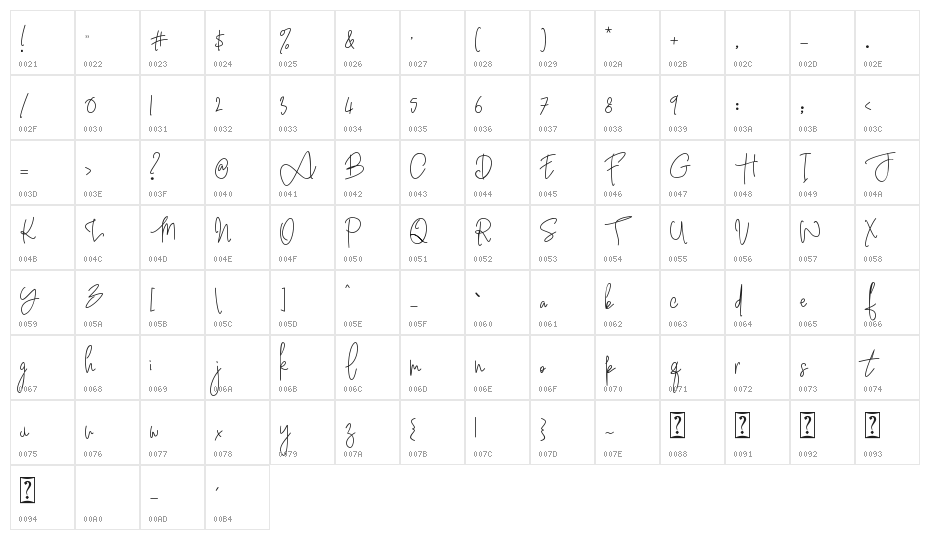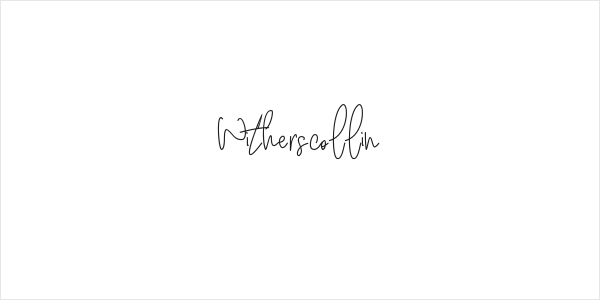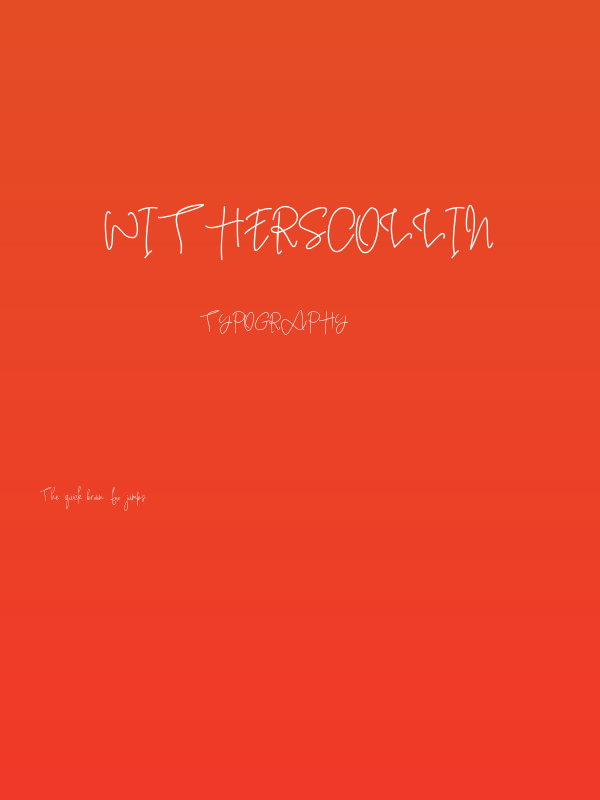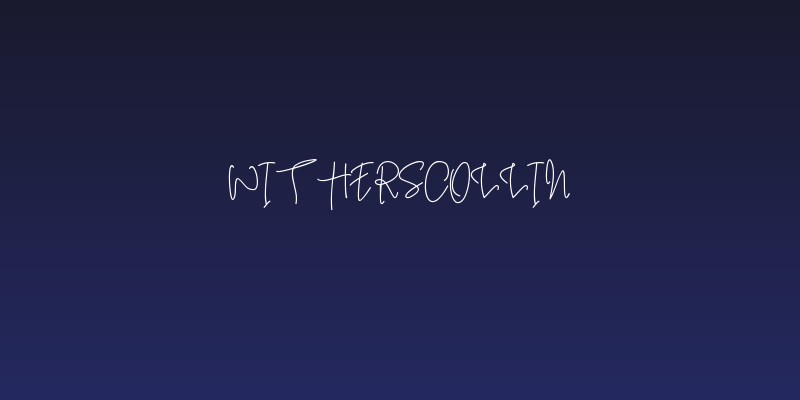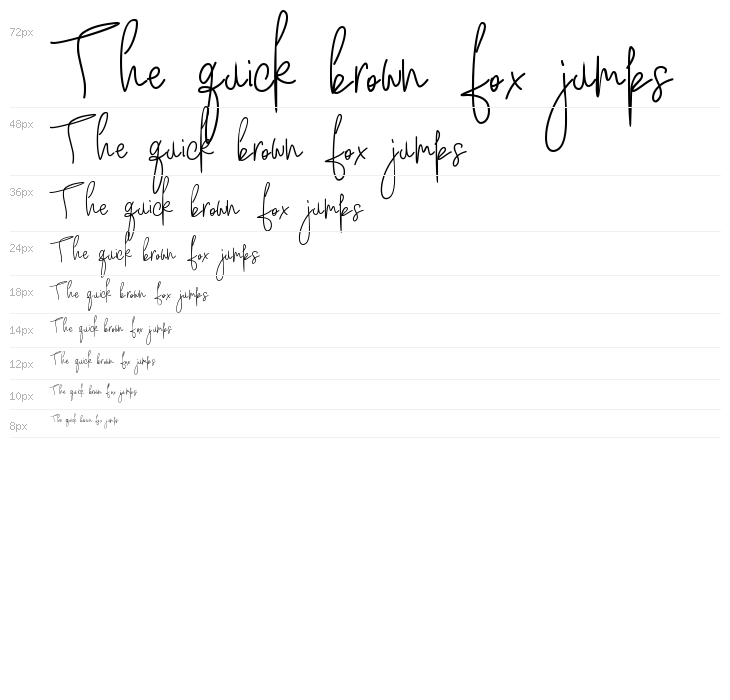
Witherscollin Font
Witherscollin Description
This font features a lively and dynamic handwritten style, characterized by its flowing and interconnected letterforms. The uppercase letters exhibit a playful and whimsical quality, with some letters extending beyond the baseline, adding a sense of movement. The lowercase letters maintain a consistent fluidity, with elongated ascenders and descenders that create a harmonious rhythm. The numerals are clear and legible, while the special characters complement the overall aesthetic with their unique and expressive shapes. This font's informal and artistic nature makes it ideal for creative projects.